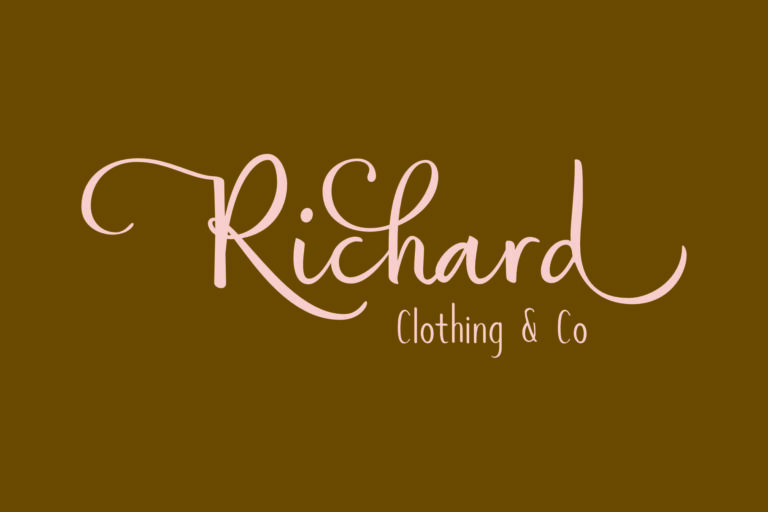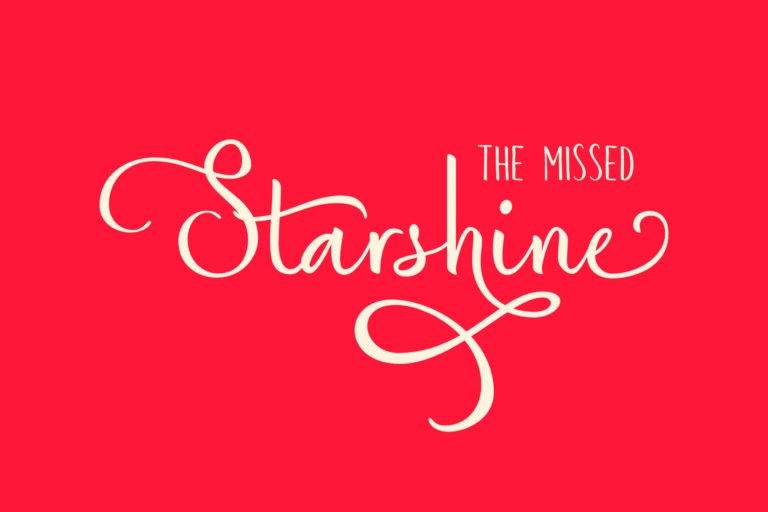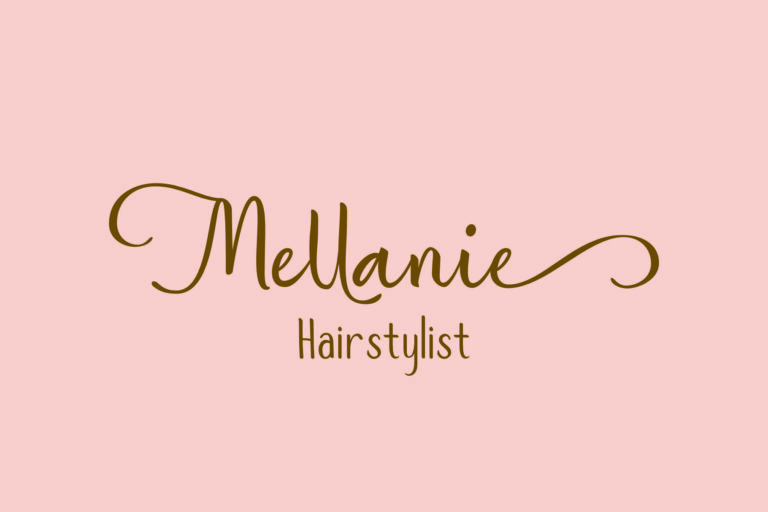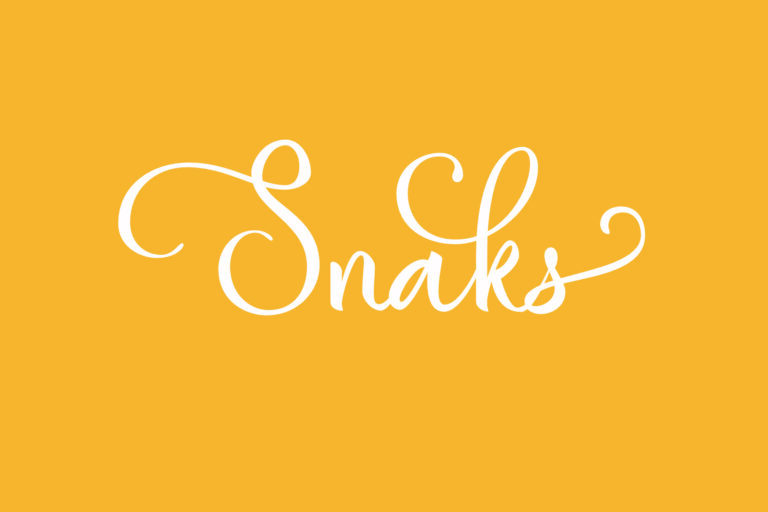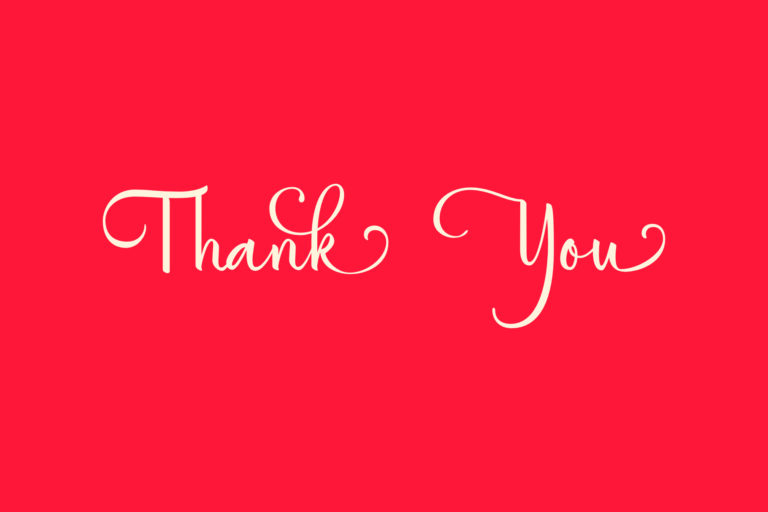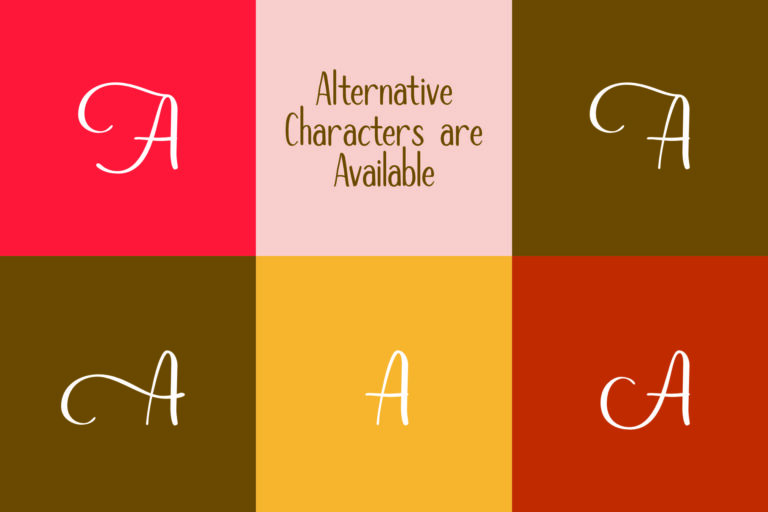
Autumn Mood Script
Autumn Mood Sans
Autumn Mood is a beautiful script font duo that makes for gorgeous logos, posters, wedding invitations, blog posts, social media, and more!
This new script font includes over 50 Alternate characters to make everything look totally hand-done.
- Upper + Lowercase Letters w/ alternates
- Numbers + Punctuation
- Non-English support